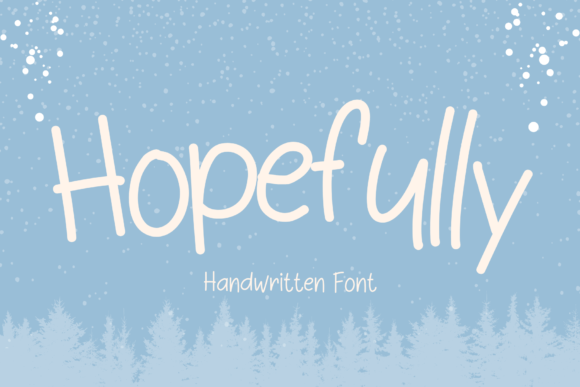
Welcome to the world of Hopefully Font, where playfulness and authenticity come together in a beautifully crafted script font. Created by Brown Cupple Fonts, this handwritten gem is the ultimate choice for anyone seeking the Best Font For Anniversary Card or any other creative project you have in mind.
With Hopefully Font, your designs will effortlessly exude a sense of joy and whimsy. Its unique and charming style adds a personal touch to any piece of artwork, making it perfect for greeting cards, invitations, and even photo albums. Let your creativity run wild as you explore the endless possibilities this font offers.
Capture the hearts of your audience with this captivating font, ideal for blog posts, logos, and branding. Its natural and organic strokes give your designs a warm and friendly feel, connecting with your readers on a deeper emotional level. Whether you're aiming to create a cozy atmosphere or a playful vibe, Hopefully Font has got you covered.
But the uses of Hopefully Font don't stop there. Elevate your marketing materials, ads, and decorations with its irresistible charm. Watch as your designs come to life and leave a lasting impression on your audience. With this font, every detail matters, and every project becomes a masterpiece.
What makes Hopefully Font truly exceptional is its versatility. It seamlessly blends with any theme or style, adapting to your needs effortlessly. Its wide range of stylistic alternates and ligatures allows you to customize your designs to perfection, ensuring a unique and eye-catching outcome every time.
Embrace the playfulness and authenticity that Hopefully Font embodies. Let it be the driving force behind your next masterpiece. Add this gem to your design arsenal and watch your ideas flourish like never before.